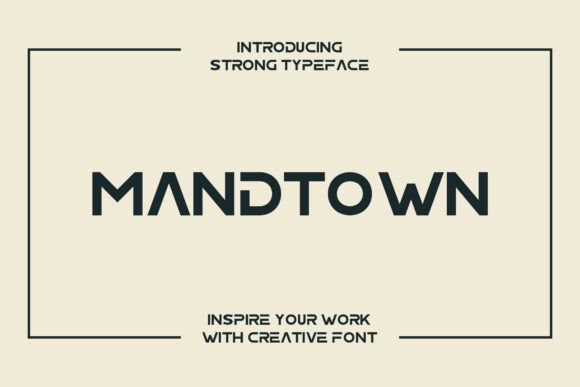
Mandtown Font: The Ultimate Sans Serif for Modern Designs
In the world of typography, fonts play a crucial role in conveying the tone and personality of a brand, product, or artwork. With the ever-growing demand for modern and edgy designs, the Mandtown font has emerged as a confident sans serif font that blends urban style with modern simplicity. In this article, we’ll explore the features, benefits, and applications of the Mandtown font, and why it’s becoming a popular choice among designers and artists.
What is Mandtown Font?
Mandtown is a sans serif font designed to make a statement. Its sturdy letterforms, tight spacing, and clean structure give it a bold and contemporary voice that’s perfect for a wide range of applications. From branding and streetwear designs to posters, album covers, and editorial layouts, Mandtown is the ultimate font for designers looking to add a touch of urban style to their work.
Key Features of Mandtown Font
- Sturdy Letterforms: Mandtown’s letterforms are designed to be strong and resilient, making it perfect for bold and eye-catching designs.
- Tight Spacing: The font’s tight spacing creates a sense of urgency and energy, making it ideal for designs that require a dynamic and modern feel.
- Clean Structure: Mandtown’s clean structure gives it a sleek and sophisticated look that’s perfect for designs that require a touch of elegance.
- Urban Style: The font’s urban style and modern simplicity make it perfect for designs that require a bold and contemporary voice.
Benefits of Using Mandtown Font
So, why should you choose Mandtown font for your next design project? Here are just a few benefits of using this versatile and modern font:
- Versatility: Mandtown is a versatile font that can be used for a wide range of applications, from branding and advertising to streetwear designs and editorial layouts.
- Legibility: The font’s clean structure and sturdy letterforms make it highly legible, even at small sizes.
- Uniqueness: Mandtown’s unique blend of urban style and modern simplicity sets it apart from other sans serif fonts on the market.
- Easy to Pair: The font is easy to pair with other fonts, making it perfect for designs that require a bold and contrasting look.
Applications of Mandtown Font
Mandtown font is perfect for a wide range of applications, including:
- Branding: Use Mandtown to create bold and eye-catching logos that make a statement.
- Streetwear Designs: The font’s urban style and modern simplicity make it perfect for streetwear designs, from t-shirts to hats and bags.
- Posters: Mandtown is ideal for posters that require a bold and attention-grabbing headline.
- Album Covers: Use Mandtown to create bold and eye-catching album covers that reflect the music and style of the artist.
- Editorial Layouts: The font’s clean structure and legibility make it perfect for editorial layouts, from magazines to newspapers and blogs.
- Digital Media: Mandtown is perfect for digital media, from social media graphics to website headers and mobile apps.
Tips for Using Mandtown Font
Here are a few tips for using Mandtown font in your designs:
- Use it bold: Mandtown font is designed to be bold and eye-catching, so don’t be afraid to use it in large sizes and bold weights.
- Experiment with colors: The font’s clean structure and sturdy letterforms make it perfect for use with a wide range of colors and gradients.
- Pair it with other fonts: Mandtown is easy to pair with other fonts, so experiment with different combinations to find the perfect look for your design.
- Use it digitally: Mandtown font is perfect for digital media, so don’t be afraid to use it in your social media graphics, website headers, and mobile apps.
In conclusion, Mandtown font is a confident sans serif font that blends urban style with modern simplicity. With its sturdy letterforms, tight spacing, and clean structure, Mandtown is perfect for a wide range of applications, from branding and streetwear designs to posters, album covers, and editorial layouts. Whether you’re a designer, artist, or marketer, Mandtown font is a versatile and modern font that’s sure to make a statement.
- What is Mandtown font? Mandtown font is a confident sans serif font that blends urban style with modern simplicity.
- What are the key features of Mandtown font? The font’s key features include sturdy letterforms, tight spacing, and a clean structure.
- What are the benefits of using Mandtown font? The benefits of using Mandtown font include versatility, legibility, uniqueness, and ease of pairing with other fonts.
- What are the applications of Mandtown font? Mandtown font is perfect for a wide range of applications, including branding, streetwear designs, posters, album covers, editorial layouts, and digital media.